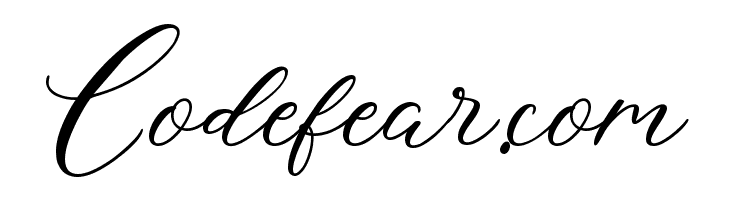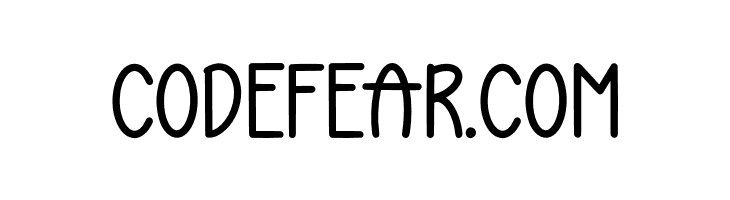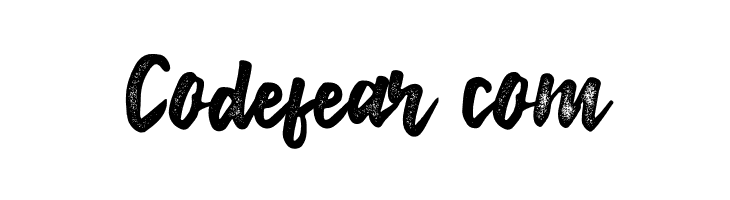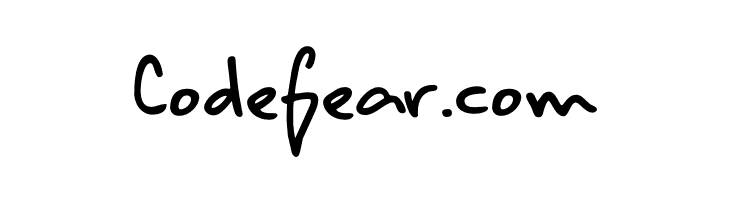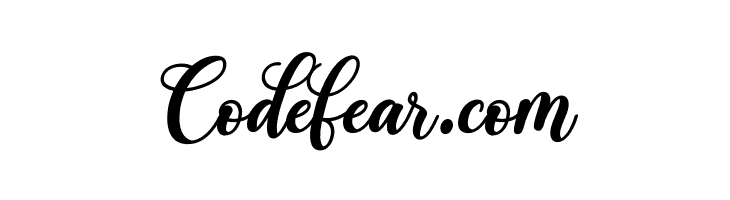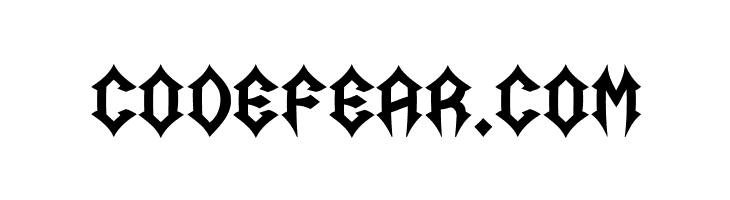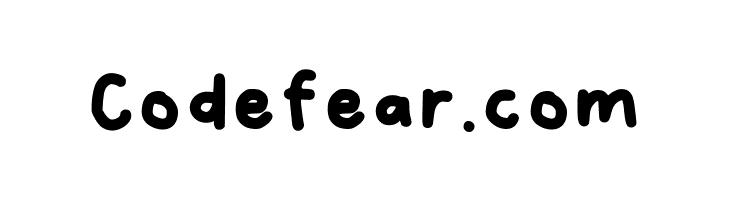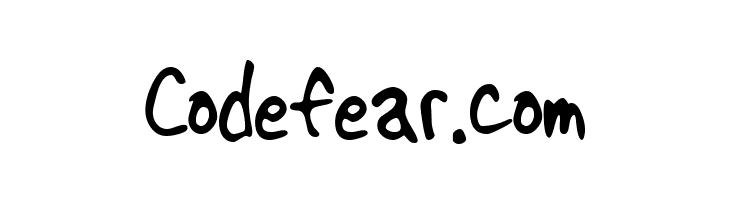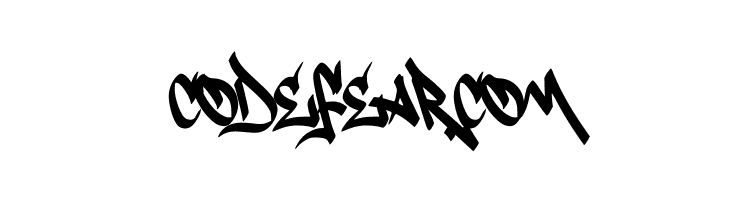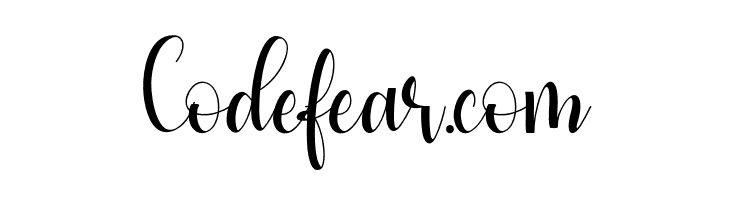
A lively and elegant script font with a handwritten touch.
A bold, textured script font with a hand-painted, artistic style.
A playful, handwritten font with bold, rounded strokes and a casual, friendly style.
An elegant, flowing script font with ornate uppercase and smooth lowercase letters.
A bold, gothic-inspired font with sharp, angular edges and intricate details.
A playful, casual handwritten font with rounded, consistent strokes.
A graceful script font with fluid, interconnected strokes and a romantic flair.
A playful, casual handwritten font with smooth, flowing lines.
A bold, graffiti-style font with dynamic, energetic strokes.
A playful, rounded font with consistent stroke width and a modern, approachable style.